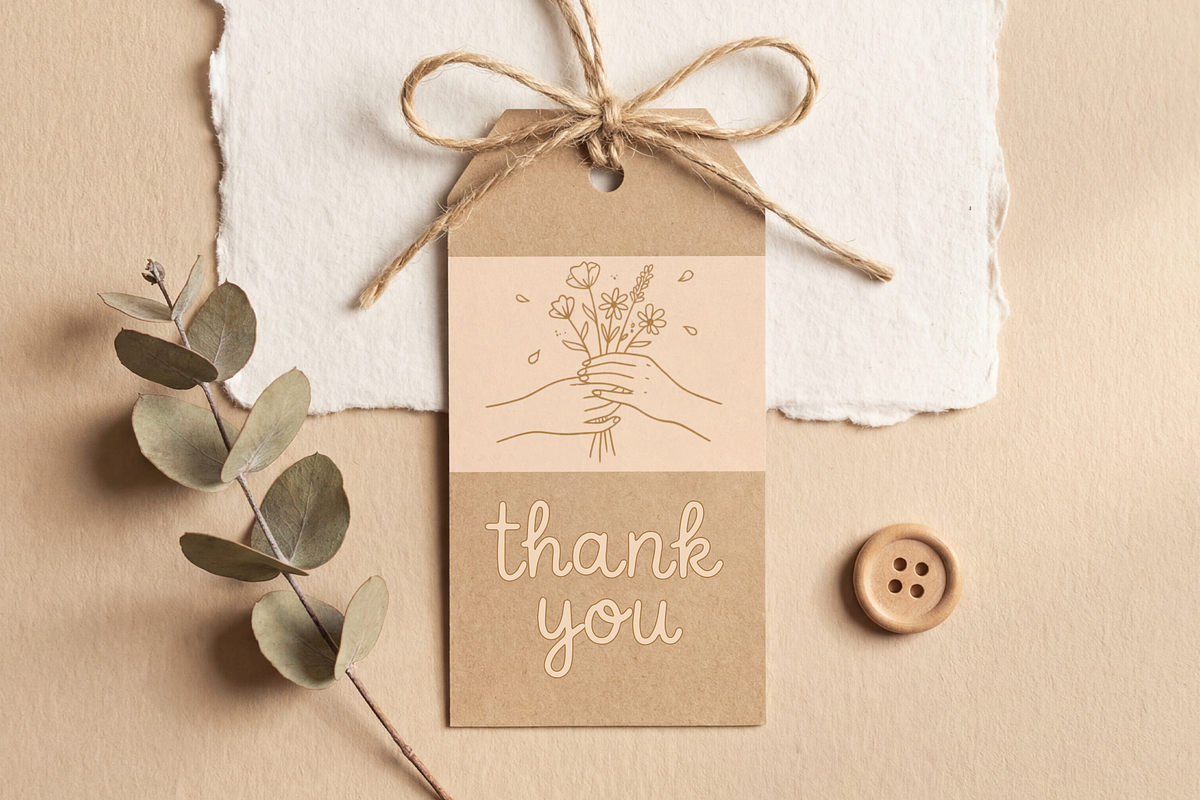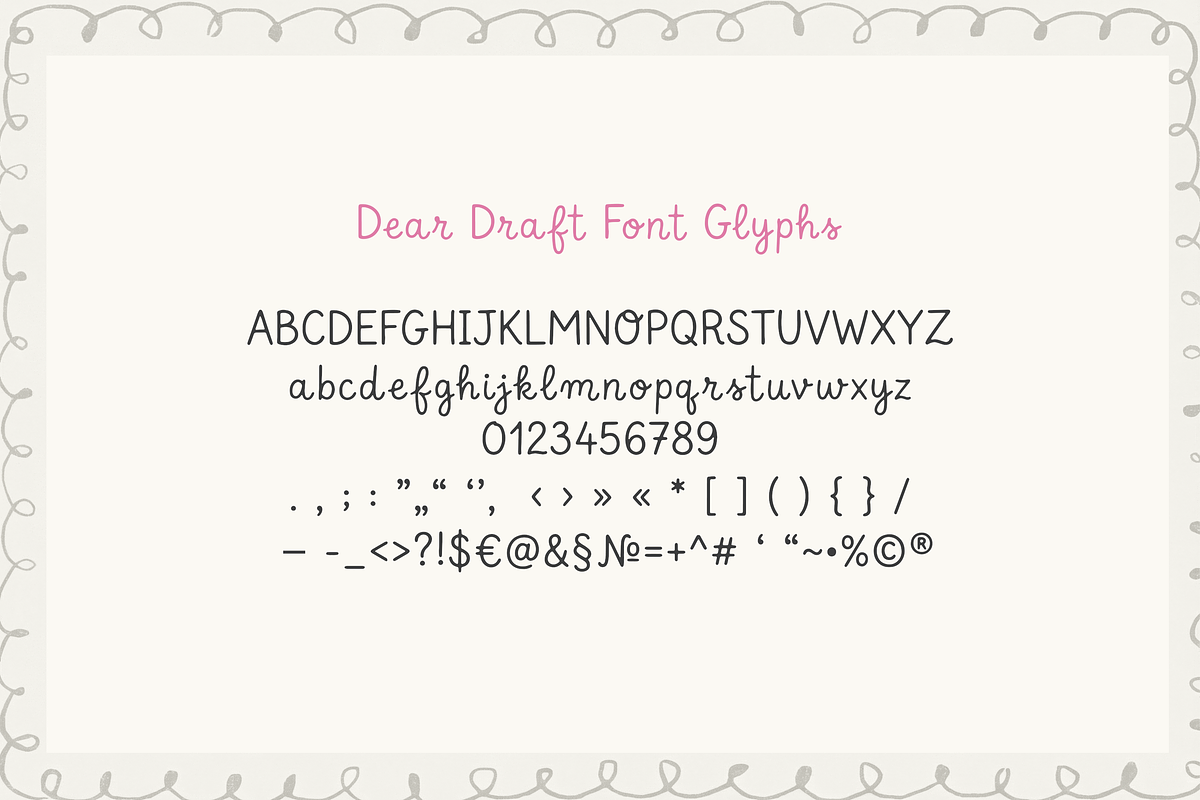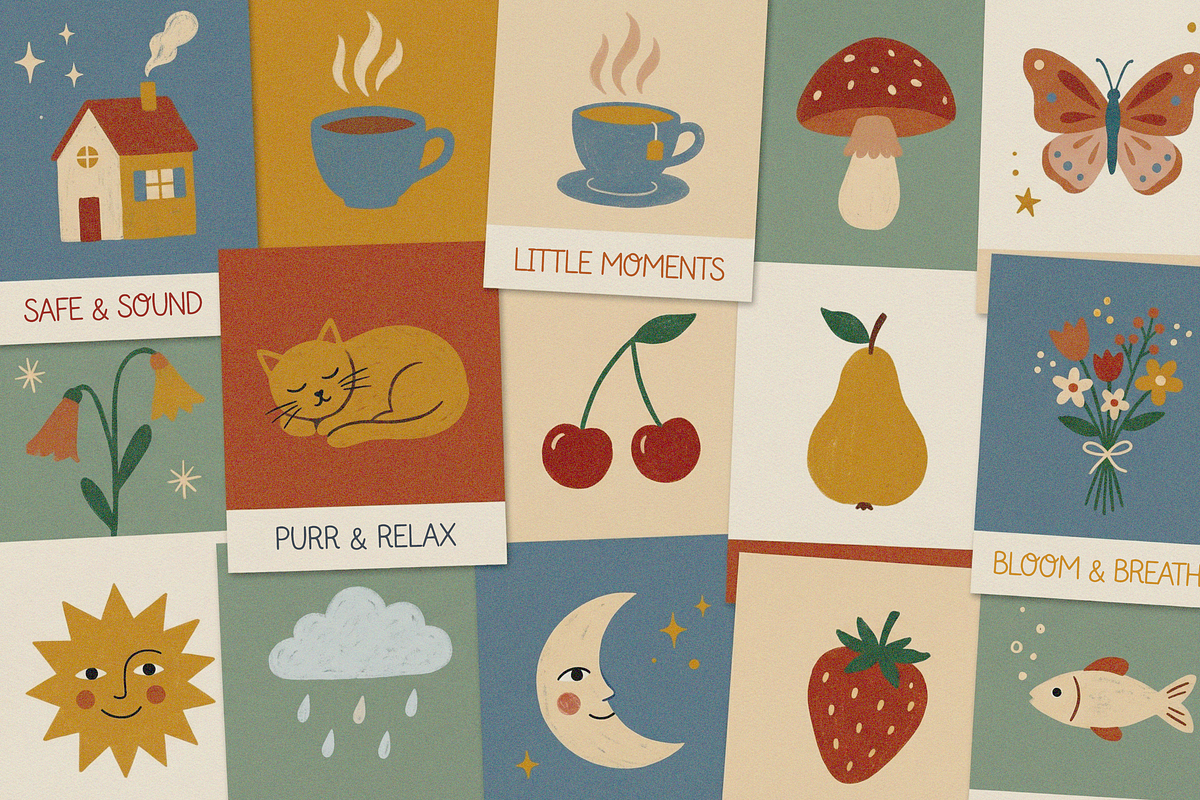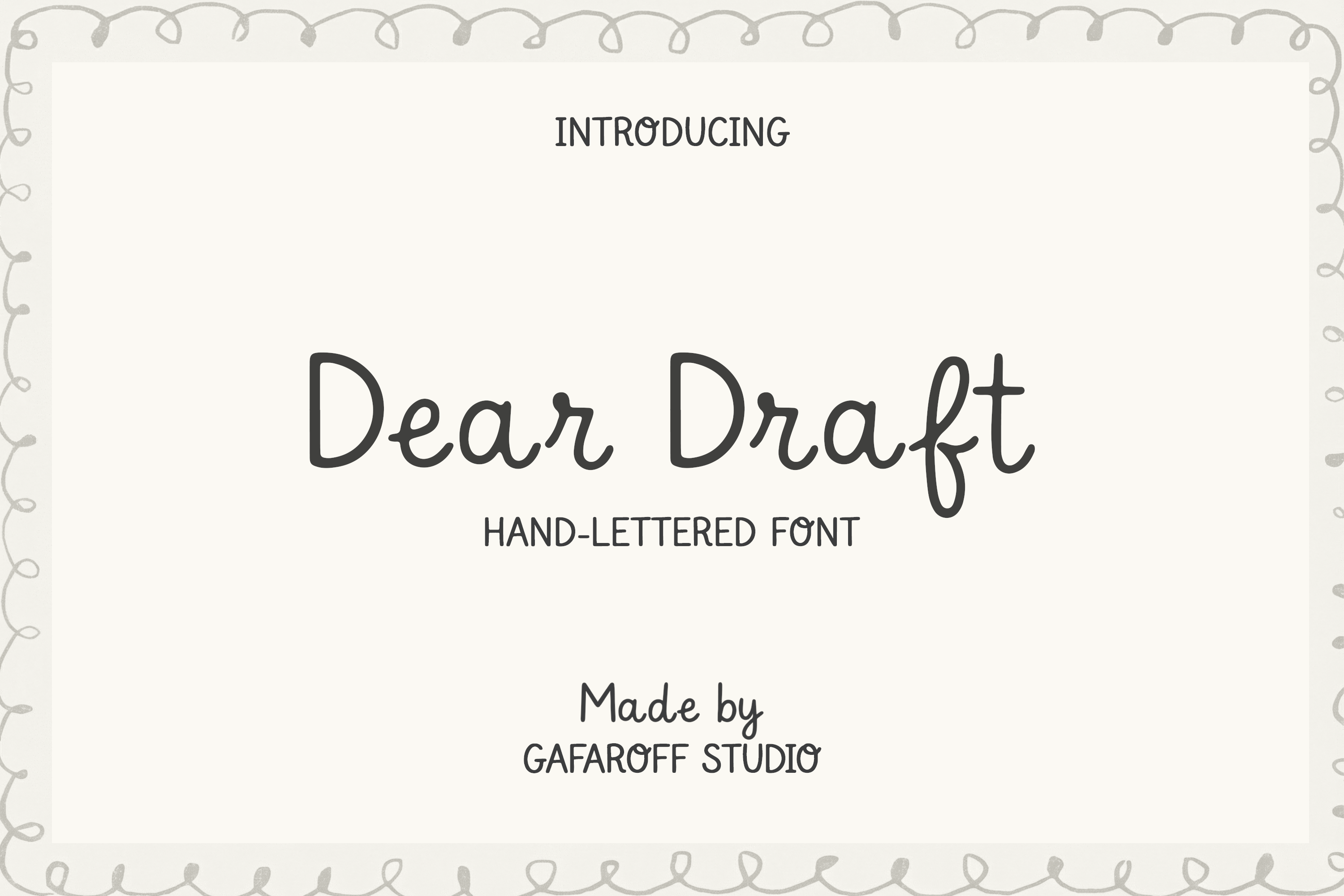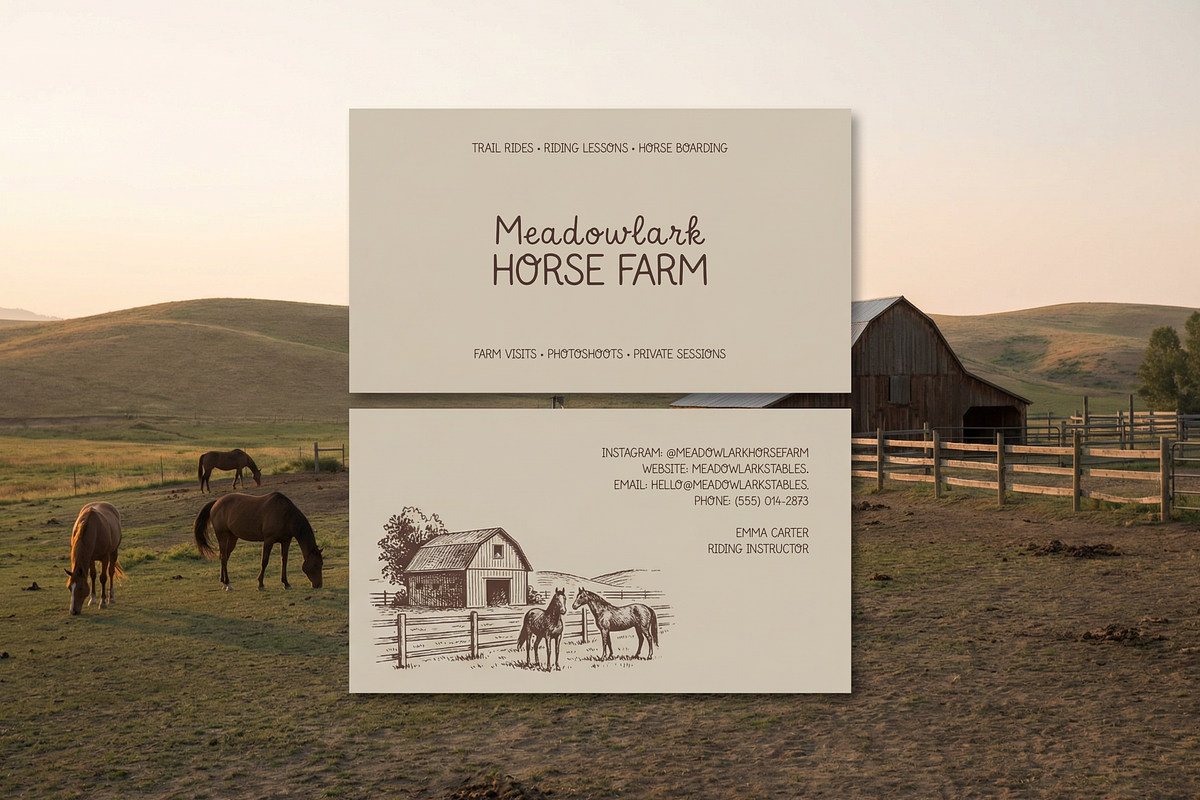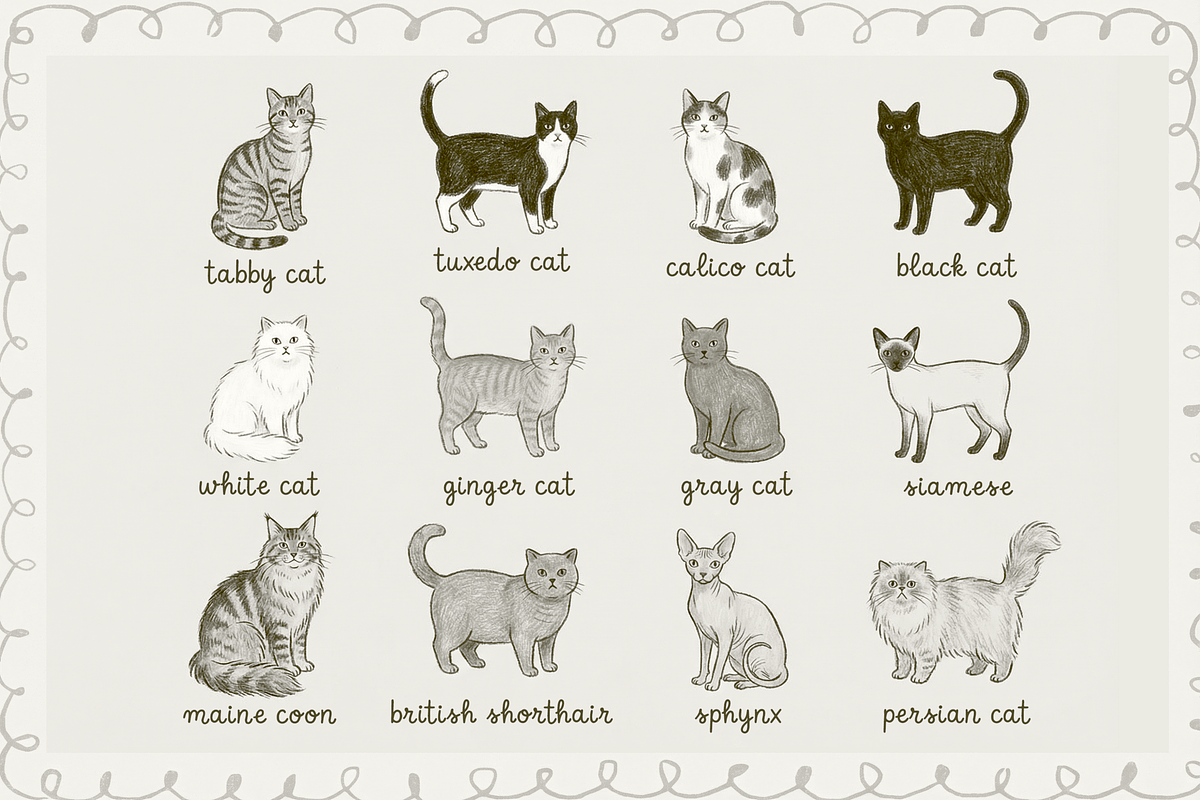
Dear Draft Hand-lettered Font
Dear Draft is a warm, hand-lettered font with a natural, friendly feel - perfect for adding a personal touch to your designs. It’s clean enough for everyday use, yet still keeps that charming handwritten character.
Use it for branding, logos, packaging, social media, quotes, posters, cards, wedding invitations, and cozy lifestyle projects.
Works great for:
- Brand identities and small business visuals
- Editorial headers and quote designs
- Invitations, greeting cards, and stationery
- Product labels and packaging
Tip: For the best results, adjust kerning slightly and mix uppercase/lowercase for a more natural rhythm.